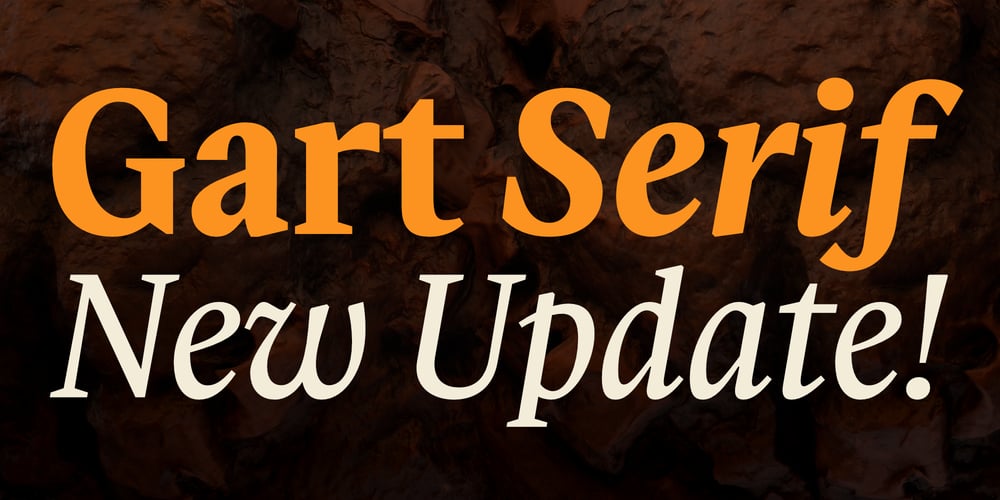
Gart Serif
Gart Serif font
Gart Serif Font Family was designed by Vitalii Hotsaniuk and published by Vitaliy Gotsanyuk. Gart Serif contains 12 styles and family package options. Gart Serif is a serif typeface rooted in the traditions of transitional serifs from the 18th century, combined with modern design solutions.Compared to other transitional serifs, Gart Serif stands out with its narrow proportions, distinct contrast, and subtle slant of the curves, which enhance its character while maintaining readability.With its variety of weights, Gart Serif can have either an elegant look, evident in its light weight, or a bold and sturdy appearance in its heavier styles. The typeface is well-suited for both setting large amounts of text and shorter headlines. Gart Serif pairs excellently with Gart Sans.Gart Serif consists of 10 styles, 642 glyphs, an true italic angle of 10°, basic Cyrillic and extended Latin, several stylistic sets, ligatures, numeral sets, and two variable fonts.